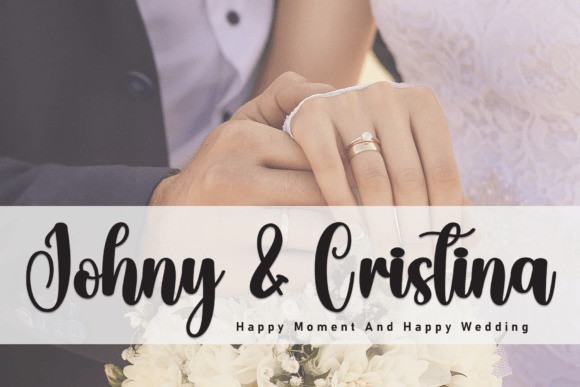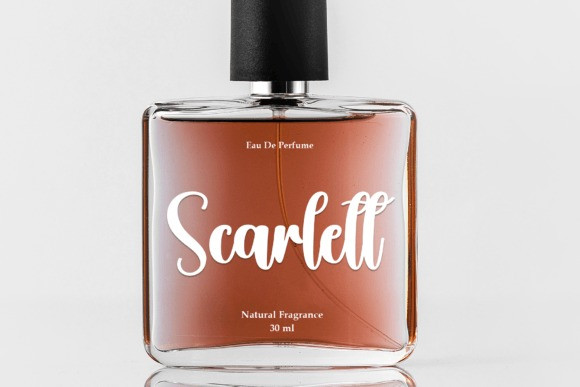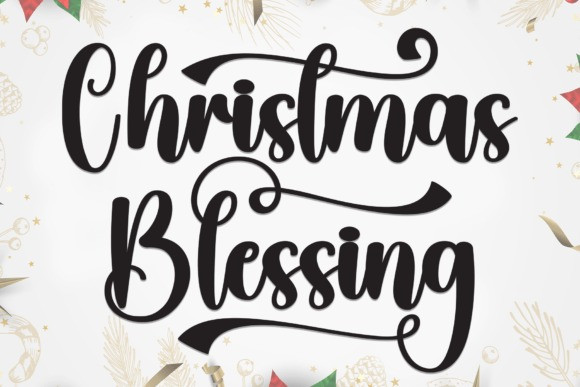
Christmas Blessing Font
Christmas Blessing Font is a lovely and timeless handwritten font. It is the best choice for creating eye catching logos, branding and quotes. Every letter has a unique and beautiful touch, which will make your design come alive